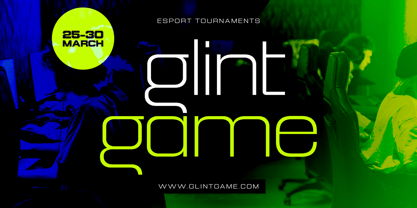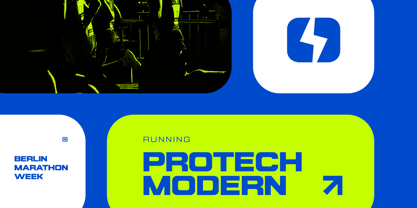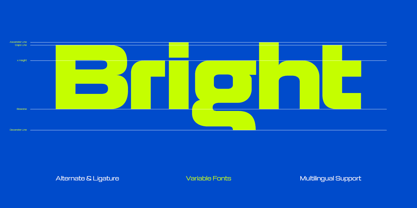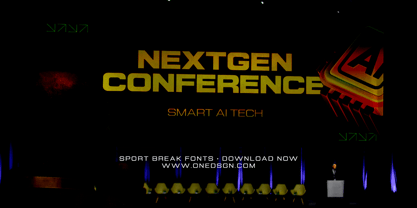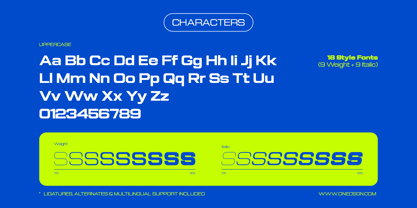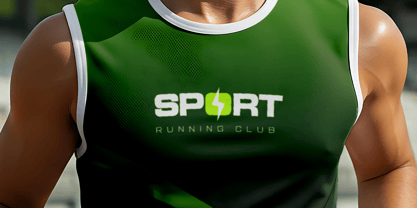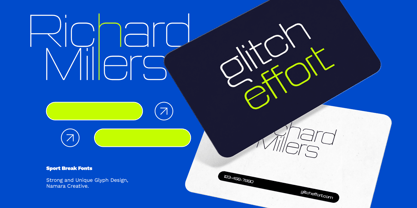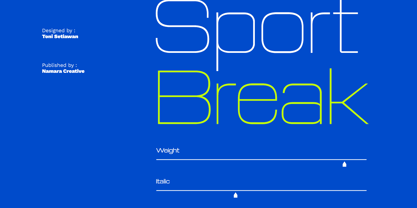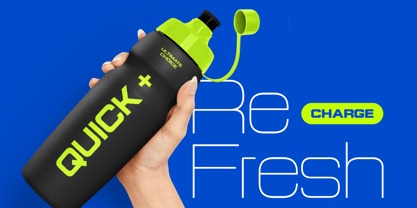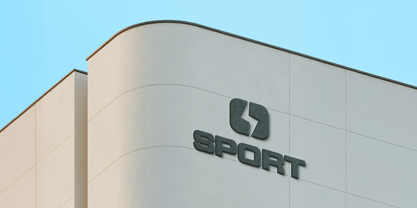
Sport Break
The Sport Break Font Family was designed by Toni Setiawan and published by Namara Creative Studio. Sport Break contains 18 styles and family package options.
Sport Break is a modern, sport-inspired variable typeface designed to energize any visual project. Featuring bold rounded corners and high-impact proportions, this font creates a fast, powerful, and futuristic impression, making it ideal for brands that seek to stand out with confidence. Crafted with versatility in mind, Sport Break offers multiple weights, alternates, and sporty ligatures, providing your typography with a unique and professional edge. Whether you’re designing apparel, fitness branding, product packaging, team jerseys, or advertising materials, this font delivers the perfect blend of strength and flexibility. Key Features : Variable Display Font : Smooth weight transitions for maximum design freedom. Alternate Characters & Ligatures : Add style variations to create dynamic headlines and titles. Multilingual Support : Covers major Latin-based languages. Thin to Black Styles : Offers perfect contrast for headlines and minimal layouts. Thank You